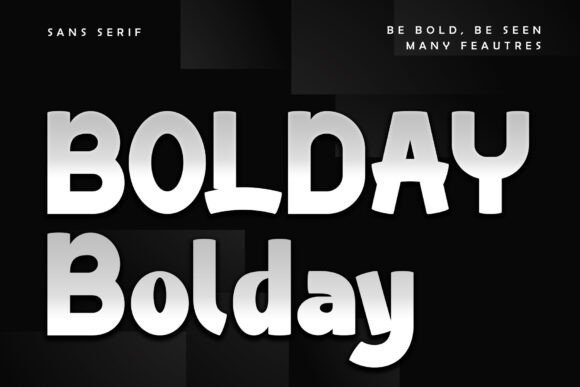
The Perfect Font for Making a Statement
Have you ever stared at a blank canvas, waiting for inspiration to strike? The cursor blinks, your mind goes blank, and you’re left wondering where to begin. But what if that blank canvas was the perfect opportunity to unleash your creativity and make a statement that leaves a lasting impression?
Enter the Bolday Font, a powerful tool designed to help you cut through the noise and make a bold impact. This sans-serif font is crafted for those who want to stand out from the crowd, with strong, clean lines that deliver clarity and style with effortless sophistication. Whether you’re working on a digital or print project, Bolday Font is the perfect choice for designers who want to drive their design forward and make a statement that’s impossible to ignore.
Bolday Font Key Features
- Font Family: Bolday Font is a modern sans-serif font family designed for digital use.
- Character Set: Supports a wide range of languages, including Latin, Cyrillic, and Greek alphabets, making it suitable for global applications.
- Unique Characteristics: Bolday Font features a unique blend of modernity and elegance, with a distinctive x-height and geometric shapes that make it stand out in digital design.
- Font Styles: Available in multiple font styles, including Light, Regular, Medium, Bold, and Black, to provide designers with flexibility and versatility.
Designer Review: Bolday Font
I recently had the chance to work with the Bolday font, and I have to say it’s a mixed bag. Here are my thoughts:
- The Bolday font is indeed bold and eye-catching, perfect for headings and titles.
- The font has a nice, modern feel to it, which makes it suitable for contemporary designs.
- The weight range is decent, offering a good balance between light and dark variations.
- The font can feel a bit too bold at times, overpowering the content and making it hard to read.
- The letterforms can appear a bit pixelated, especially at smaller font sizes.
- The font doesn’t have a lot of character variations, which can limit its versatility.
Overall, I’d say the Bolday font is a good choice for designs where you need a bold, modern feel. However, it may not be the best option for more subtle or intricate designs. With a bit more refinement, I think this font could be truly great.
Tips for Getting the Most Out of Bolday Font
For optimal results, use Bolday Font in combination with bold colors and contrasting backgrounds to create visually striking designs.
Common Use Cases for Bolday Font
Bolday Font is ideal for use in modern branding, creative projects, and digital marketing materials. It works well for headings, titles, and short blocks of text where a bold, eye-catching font is desired.